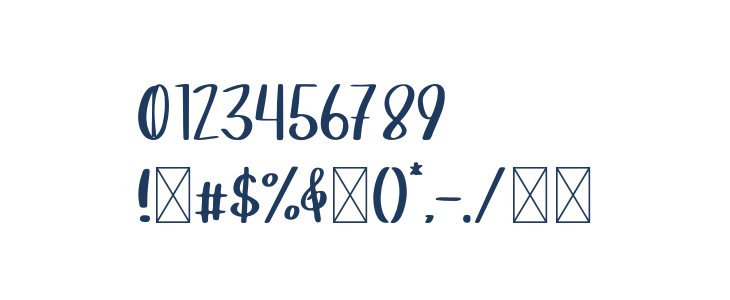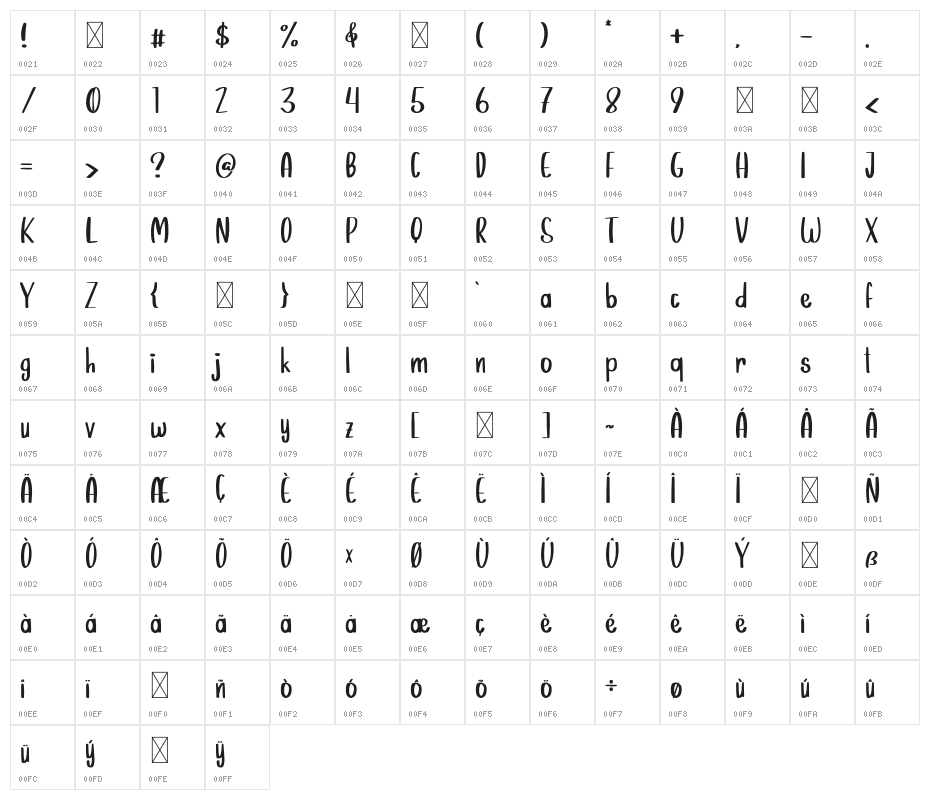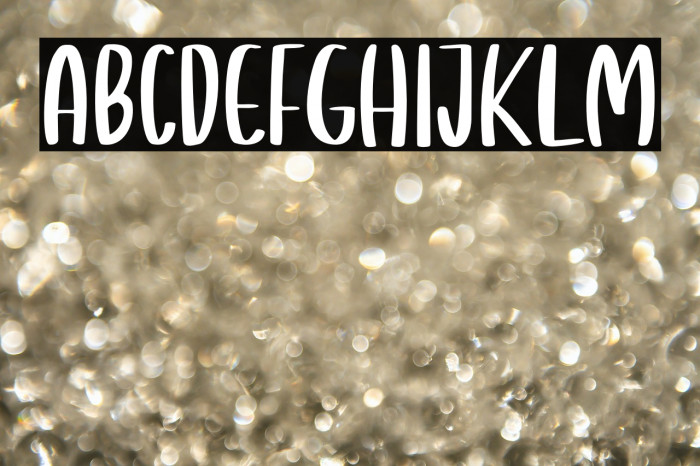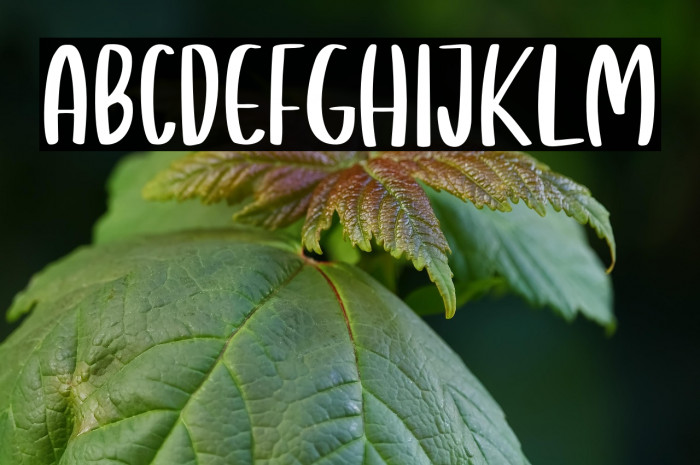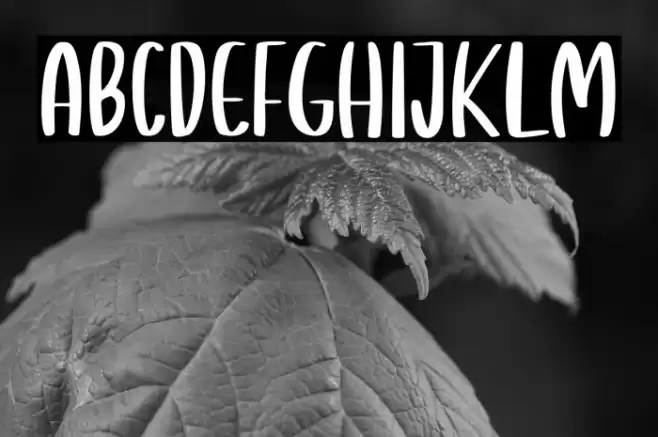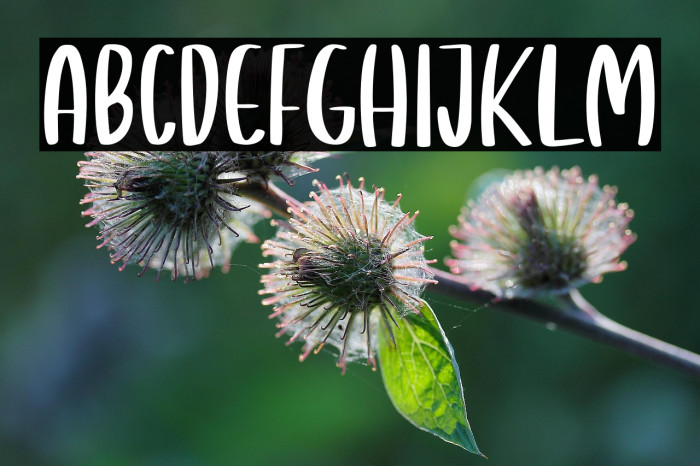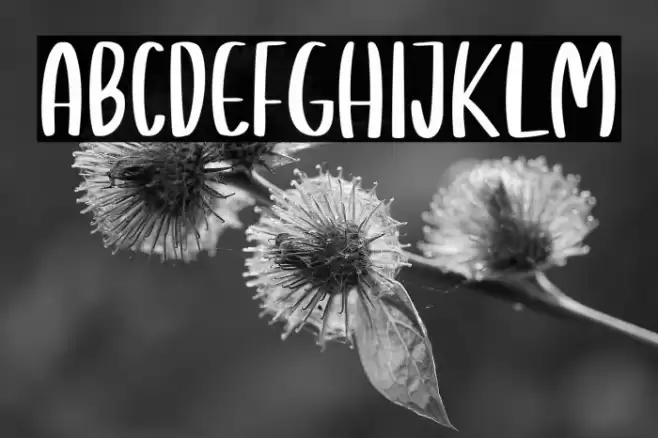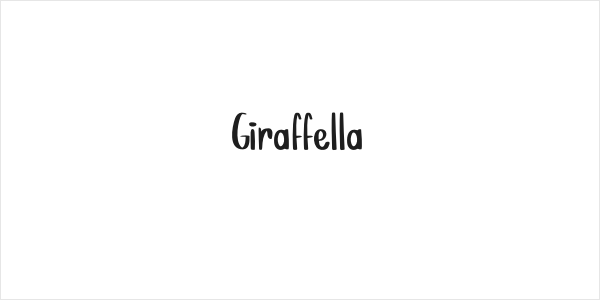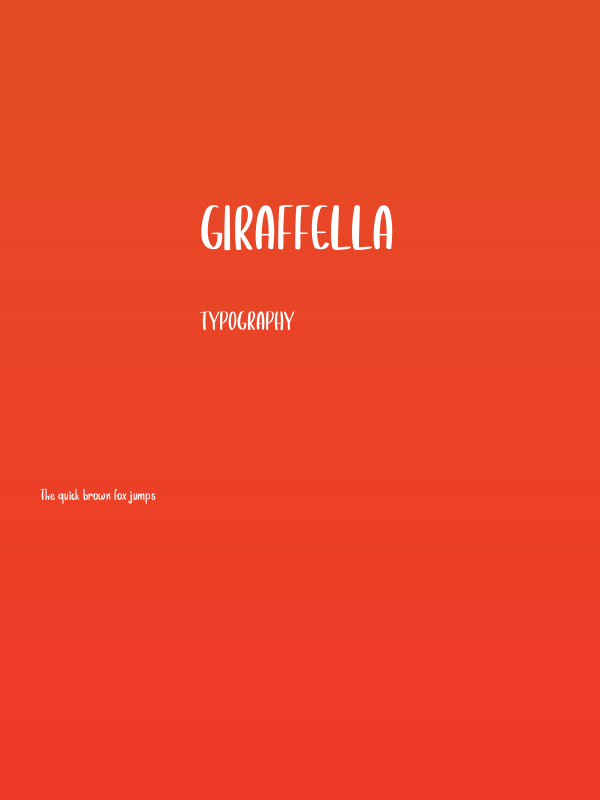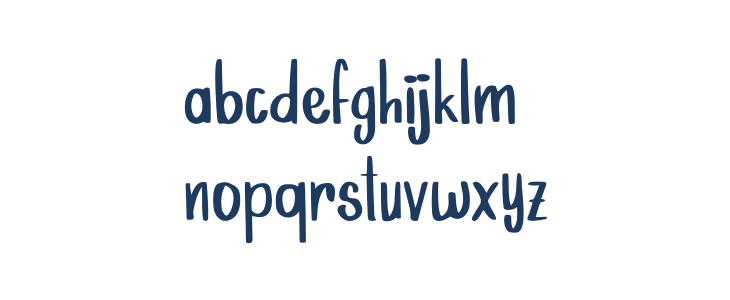
Giraffella Font
Giraffella Description
This playful and whimsical font features tall, narrow letters with a hand-drawn aesthetic. The uppercase letters are bold and slightly irregular, giving them a lively and dynamic appearance. The lowercase letters maintain a consistent style, with rounded edges and a casual feel. Numbers and special characters are designed to match the overall playful theme, making them suitable for creative and informal projects. The font's unique style is perfect for adding a touch of fun and personality to any design.
Overall StylePlayful
Use CaseLogos, Posters, Greeting cards
Proposed ProjectsIdeal for children's books, playful branding, greeting cards, and creative posters.